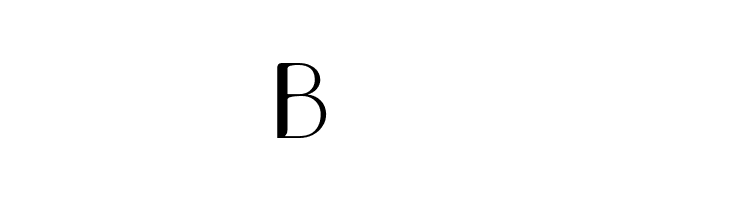
( Dominic Stanley )
A modern, stylish font with geometric and organic elements, perfect for contemporary designs.
( Dom )
A modern slab serif font with strong, block-like serifs and a clean, professional appearance.
( Dom )
A modern, light slab serif font with a clean and elegant design.
( Dom )
A bold slab serif font with strong, block-like serifs and clear readability.
( Doel Creative - creativemarket.com/fajriyandi )
A graceful, cursive script font with elegant, flowing lines.
( Doel Creative - creativemarket.com/fajriyandi )
A playful and flowing script font with elegant swashes and decorative elements.
( Doel Creative - creativemarket.com/fajriyandi )
An elegant, flowing script font with classic calligraphy style.
( Doel Creative - creativemarket.com/fajriyandi )
A classic, elegant script font with flowing, cursive letterforms.
( Doel Creative - creativemarket.com/fajriyandi )
An elegant script font with flowing, ornate characters and intricate swashes.
( Doel Creative - creativemarket.com/fajriyandi )
An elegant, flowing script font with graceful curves and decorative flourishes.
Recent favorites include TRAHO2 Regular, Twentytwelve Slab Light, Twentytwelve Slab Bold and Washington free. They balance clarity and personality, working well for tech brands, editorial layouts, and social visuals.